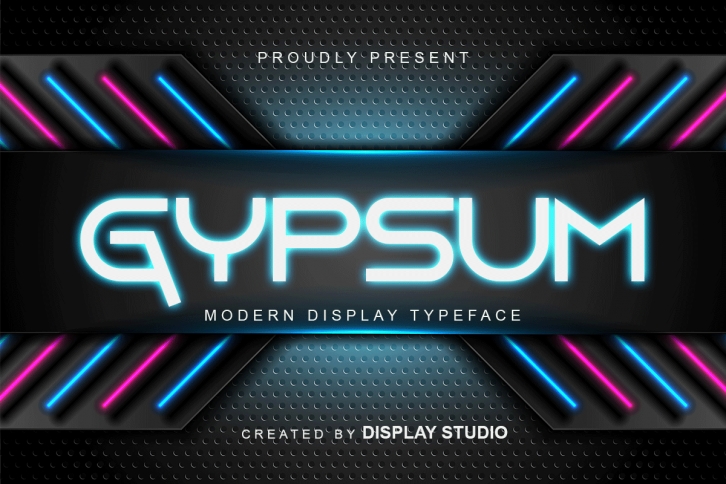
Introducing a new release, Gypsum Modern Display Typeface. This typeset is perfect for brand logos, invitations, greeting cards, or even any kind of project. With multilingual features and style variations, this typeface would further enhance the aesthetical aspect of your work.